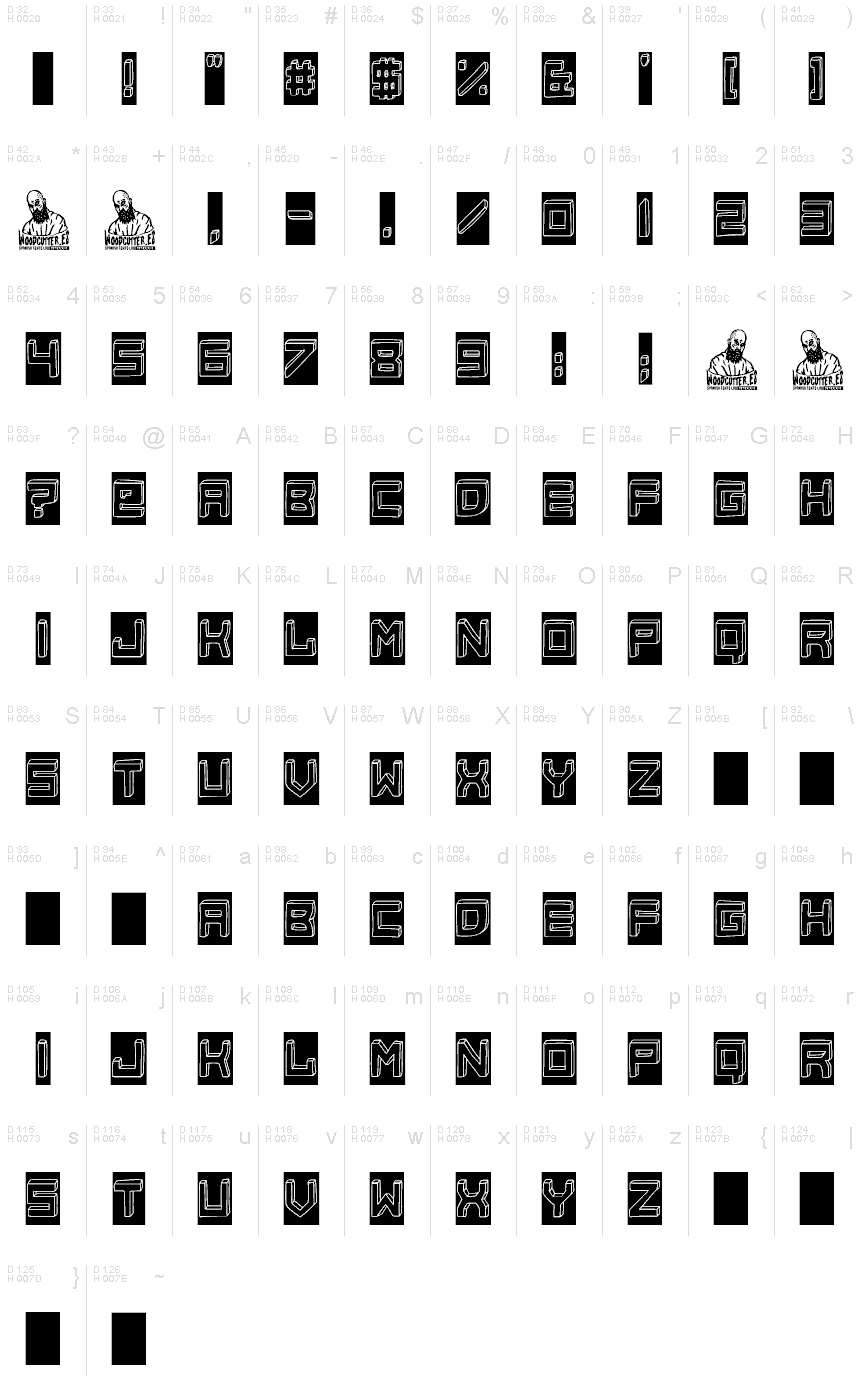
Black Entreprise
Black Entreprise font by Woodcutter is a modern and futuristic display typeface that stands out with stylish expanded letters. The appearance of this free expanded font is described through its perfectly structured letter shapes that give off a technological feel. Black Enterprise has all the qualities needed for new contemporary branding projects.
With its style, this display typeface will create wonderful video games interface texts, book covers, movie posters, advertising banners, digital artwork posters, billboard designs, packaging labels of all sorts of products especially coffee-related ones. A great pick to consider for other graphic and web design purposes too!